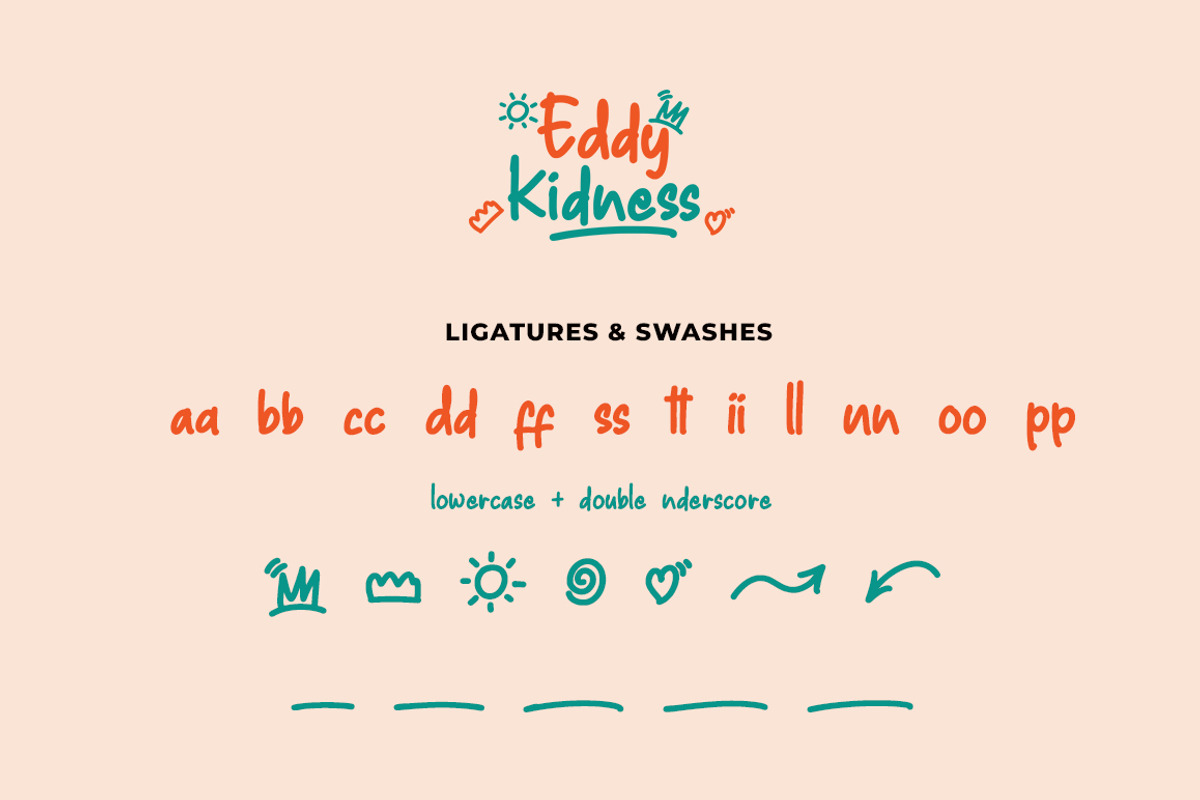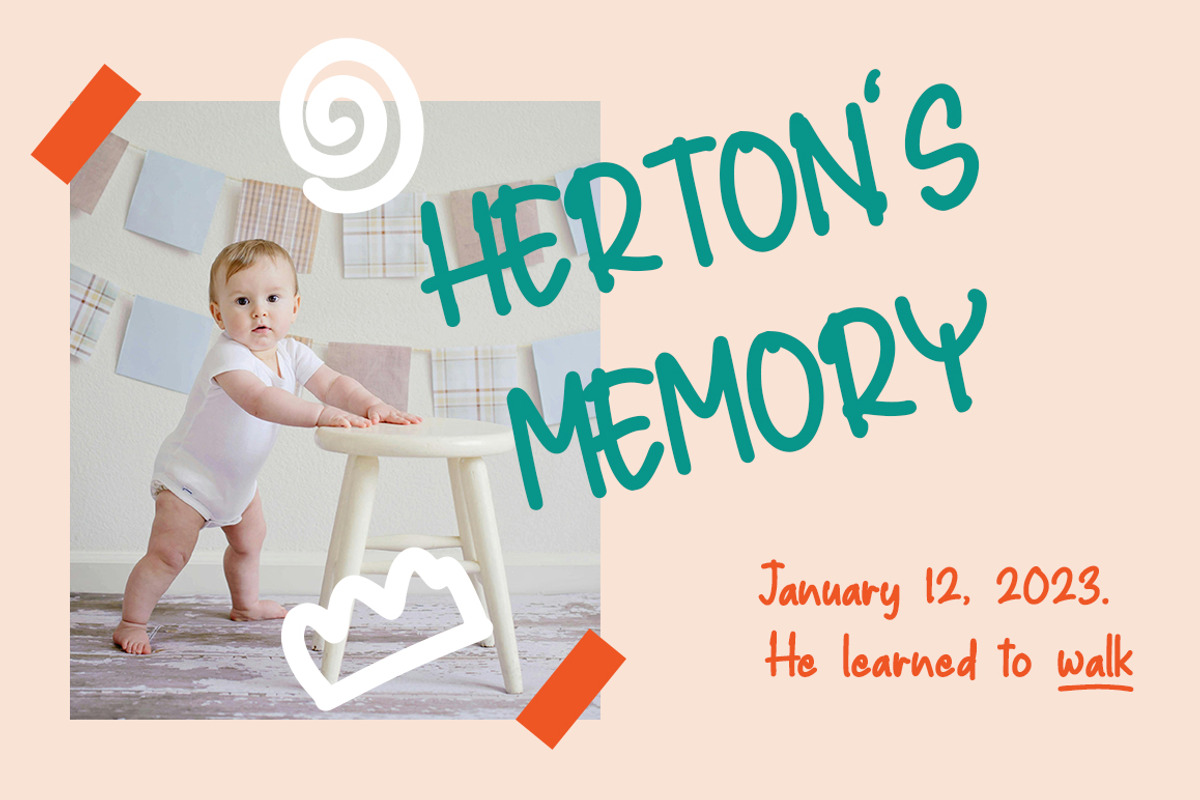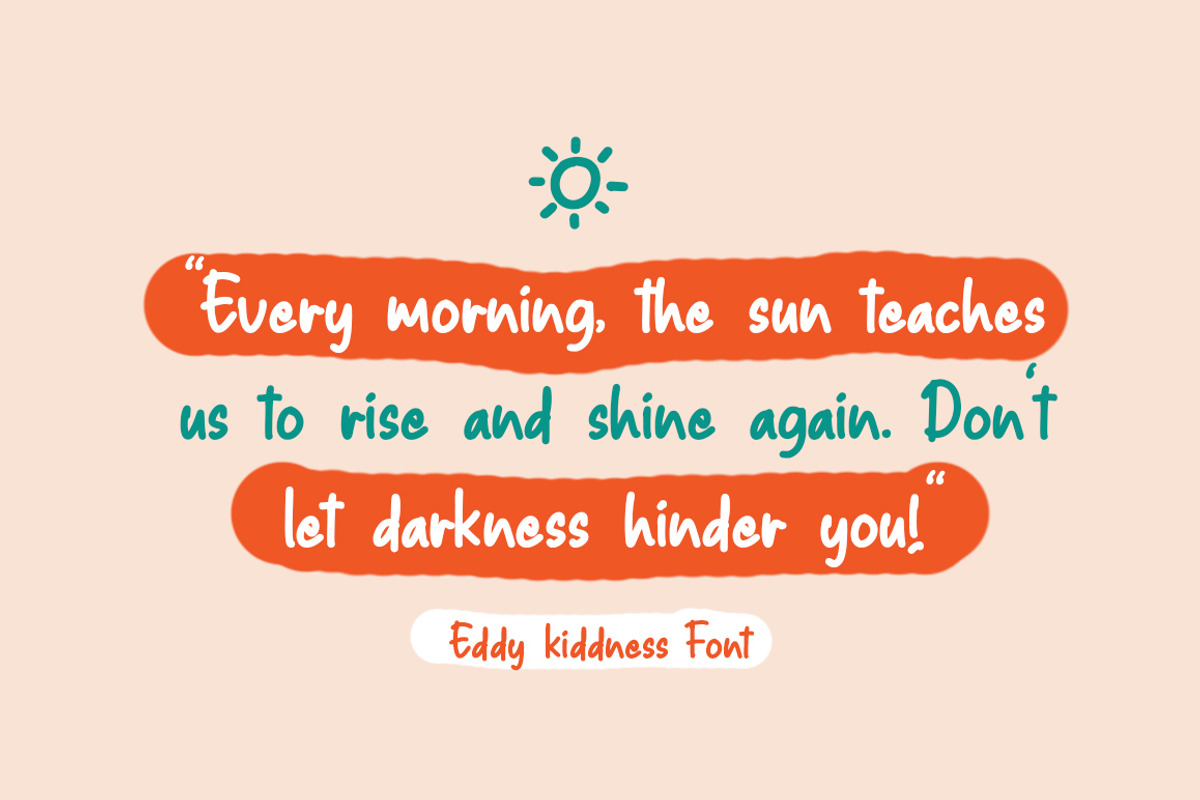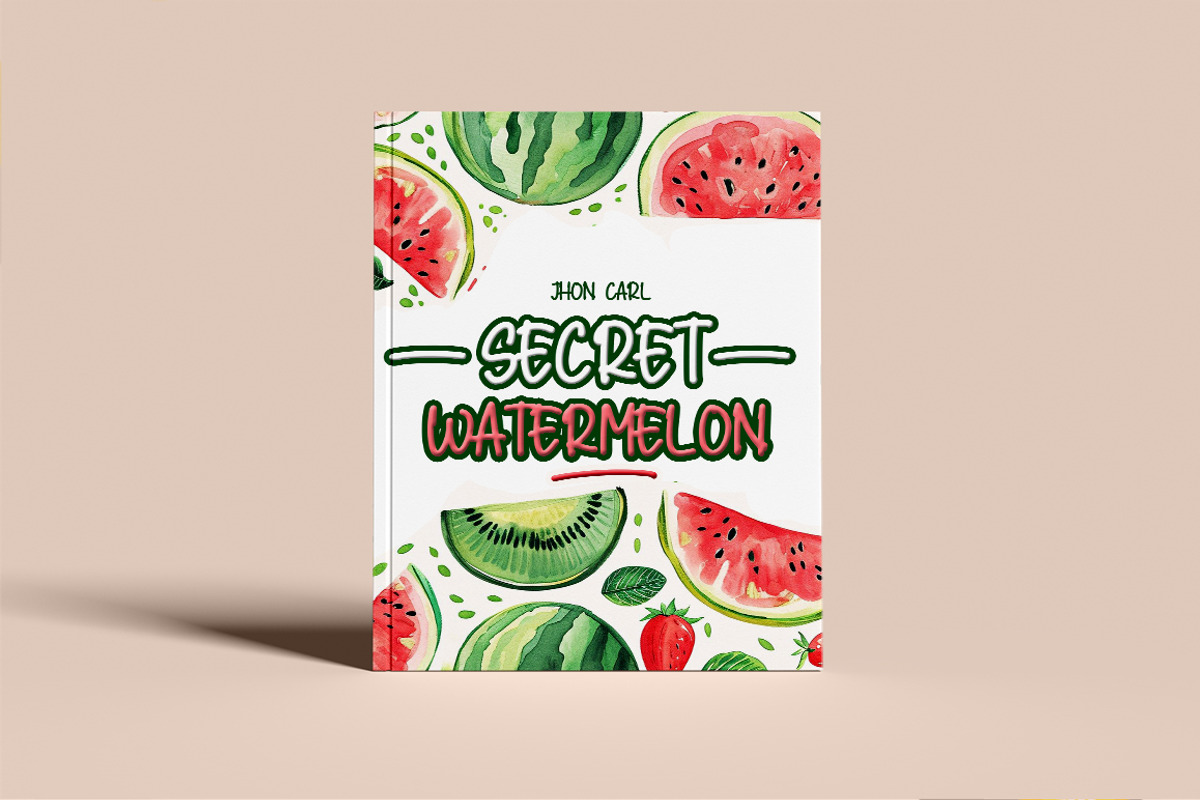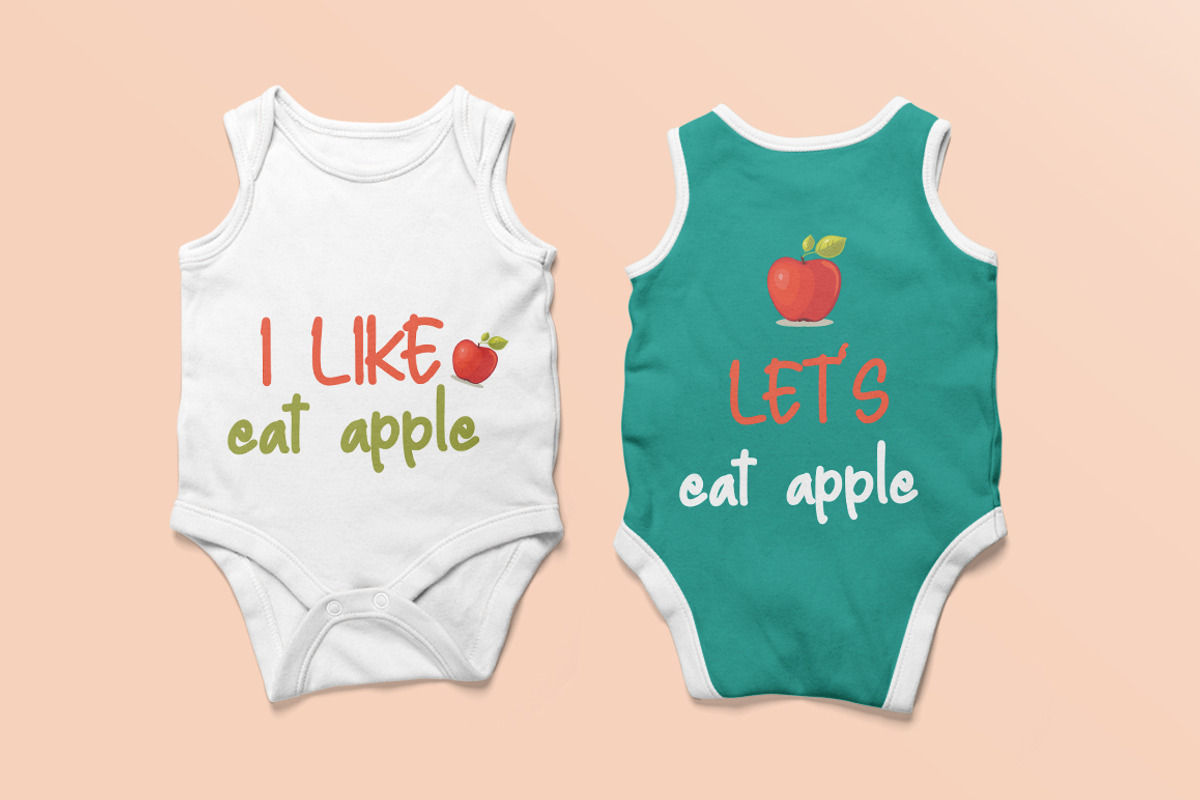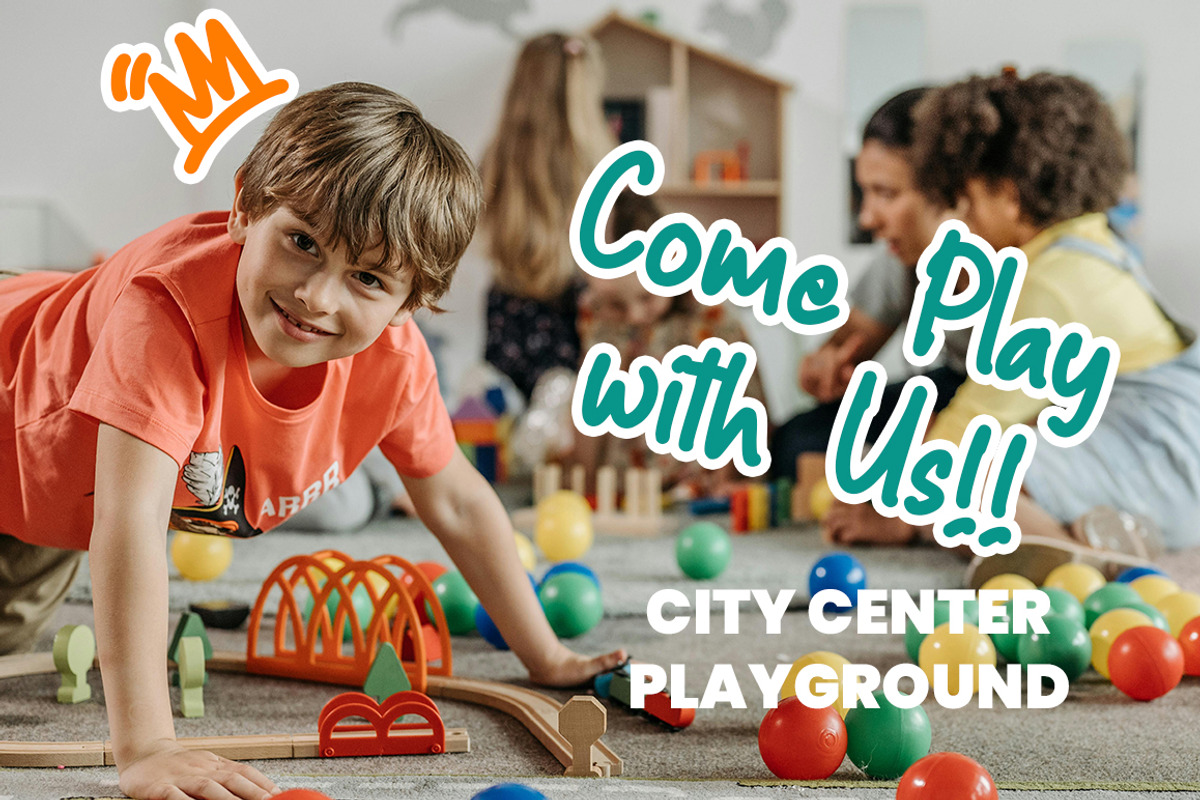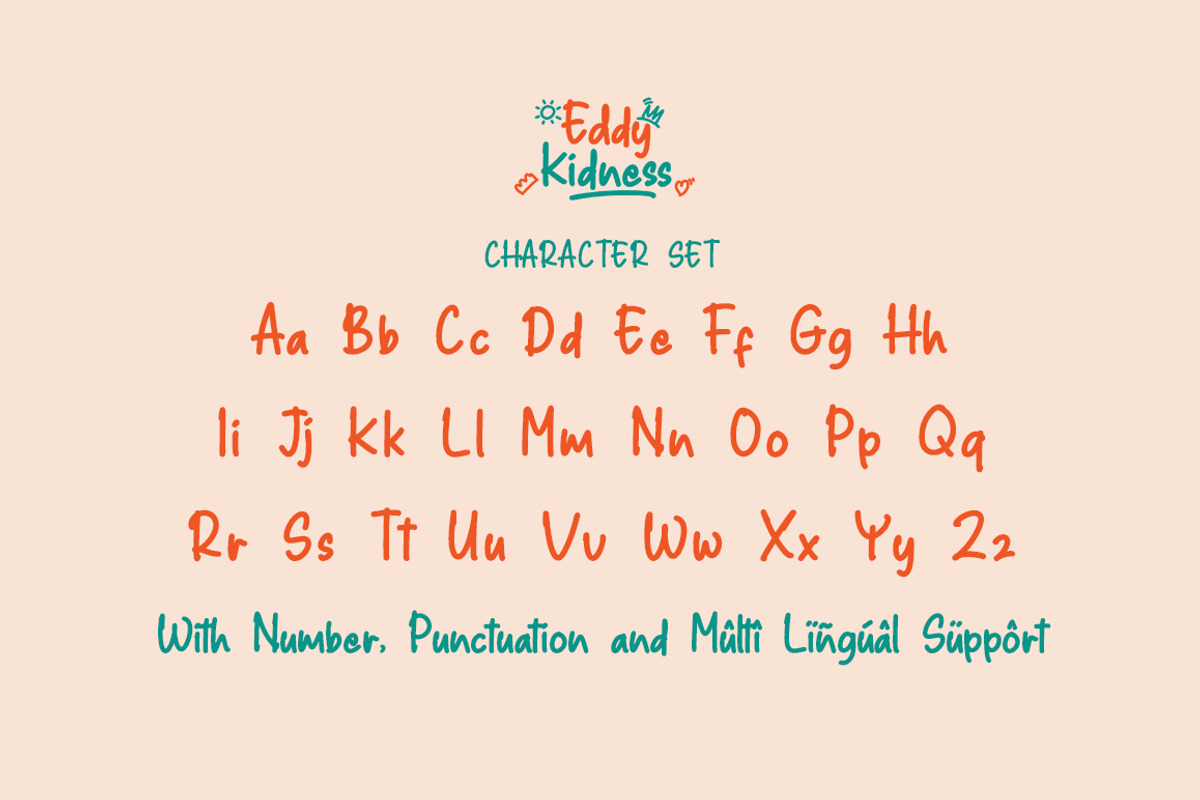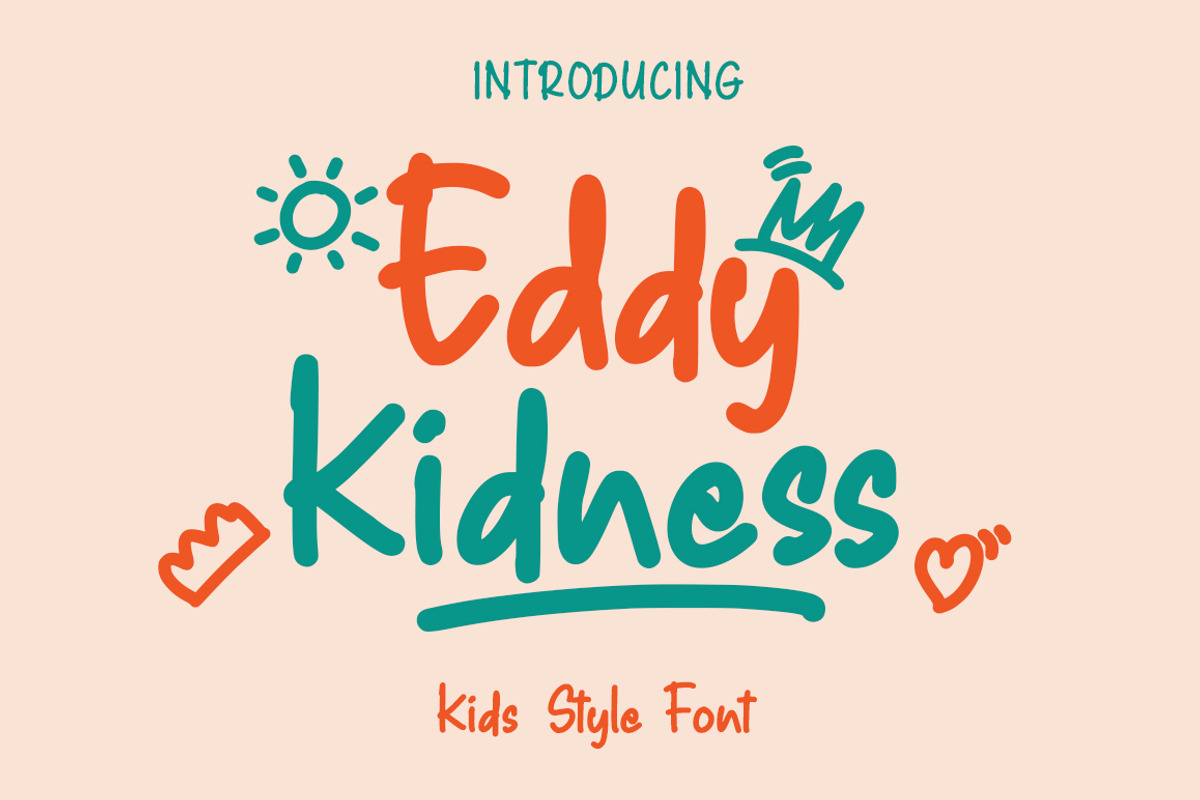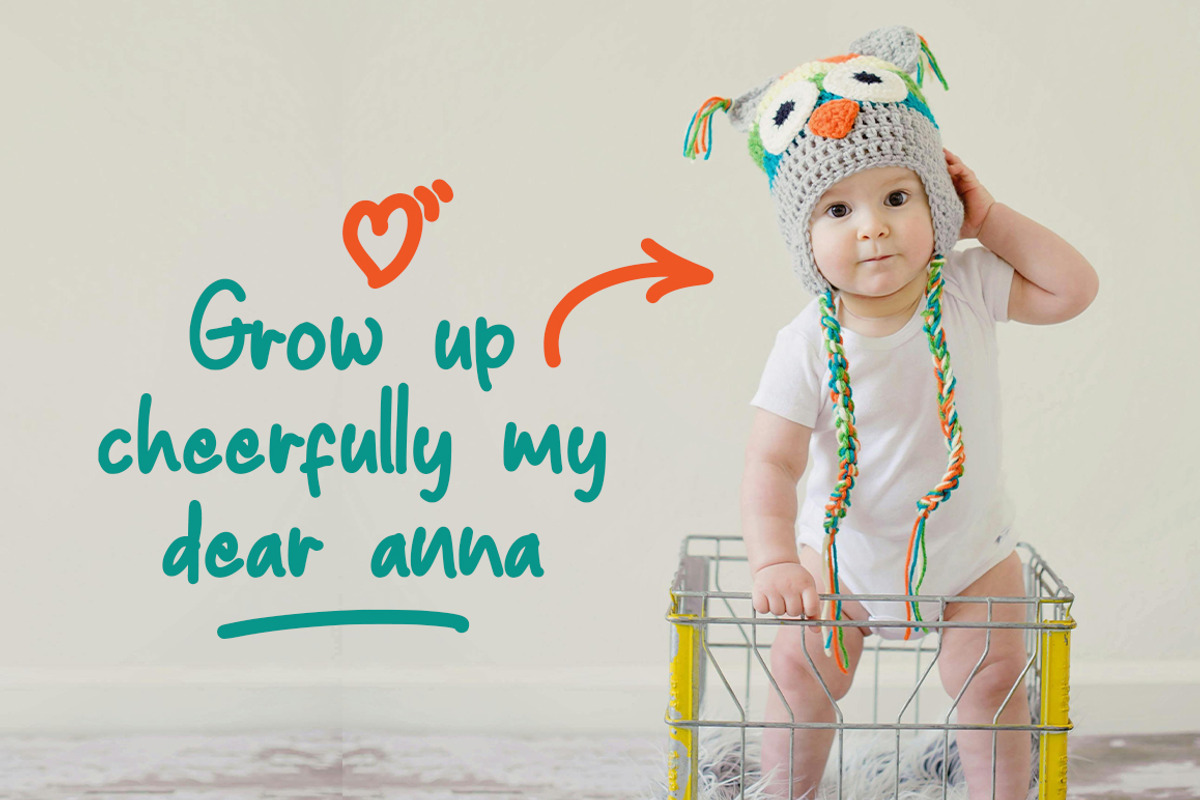
Eddy Kidness - Kids Style Font
Eddy Kidness is a playful and fun font designed specifically for kids and young audiences. With its bubbly, rounded letters and whimsical design, it’s perfect for creating cheerful and engaging content. Whether you’re designing educational materials, children’s books, party invitations, or vibrant posters, this font adds a joyful and lighthearted touch to any project.
The font features smooth curves and a friendly vibe, making it ideal for projects that need a touch of creativity and charm. Easy to read and full of personality, Eddy Kidness brings out the playful spirit of childhood, helping your designs stand out with a sense of warmth and excitement.
- Fun, kid-friendly style
- Perfect for children’s designs, invitations, and posters
- Clear, legible characters
- High-quality, versatile font that works for various creative projects
Bring a smile to your audience with Eddy Kidness, the font that captures the magic of childhood in every letter!